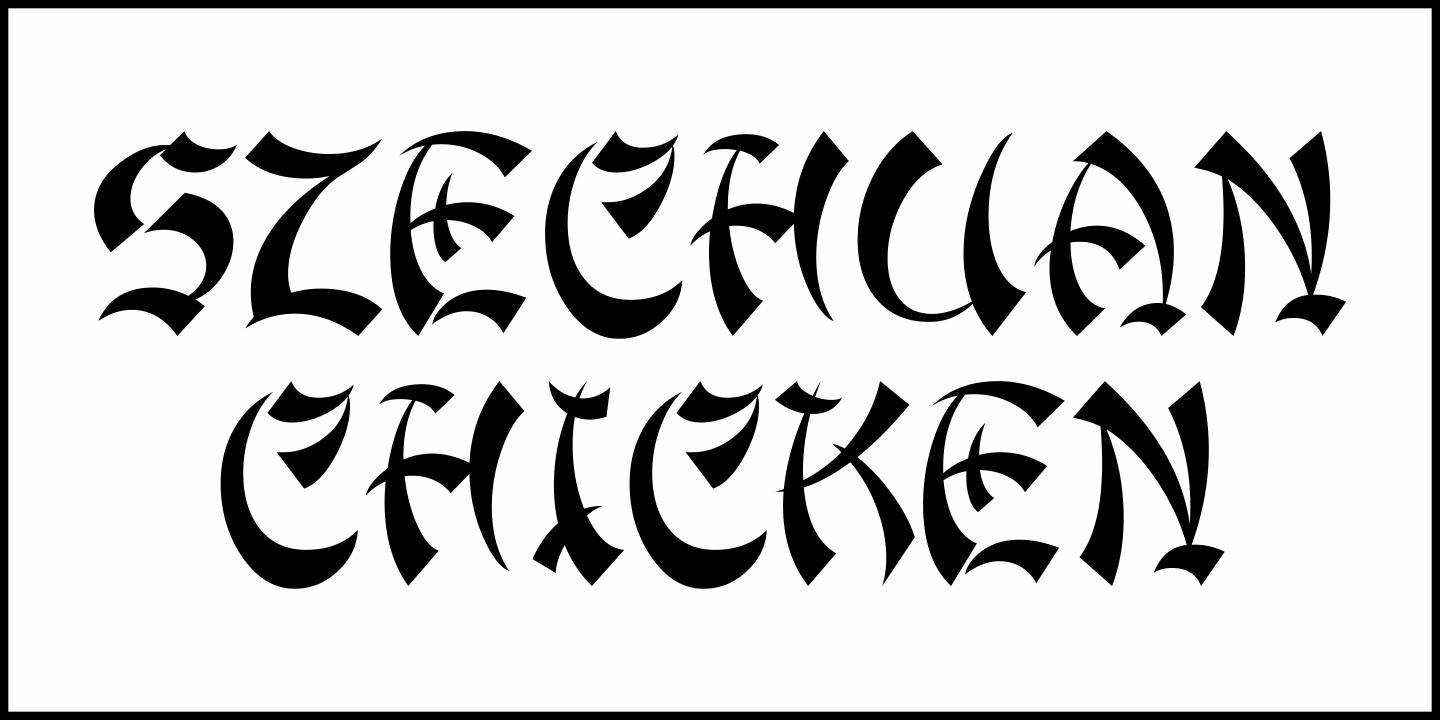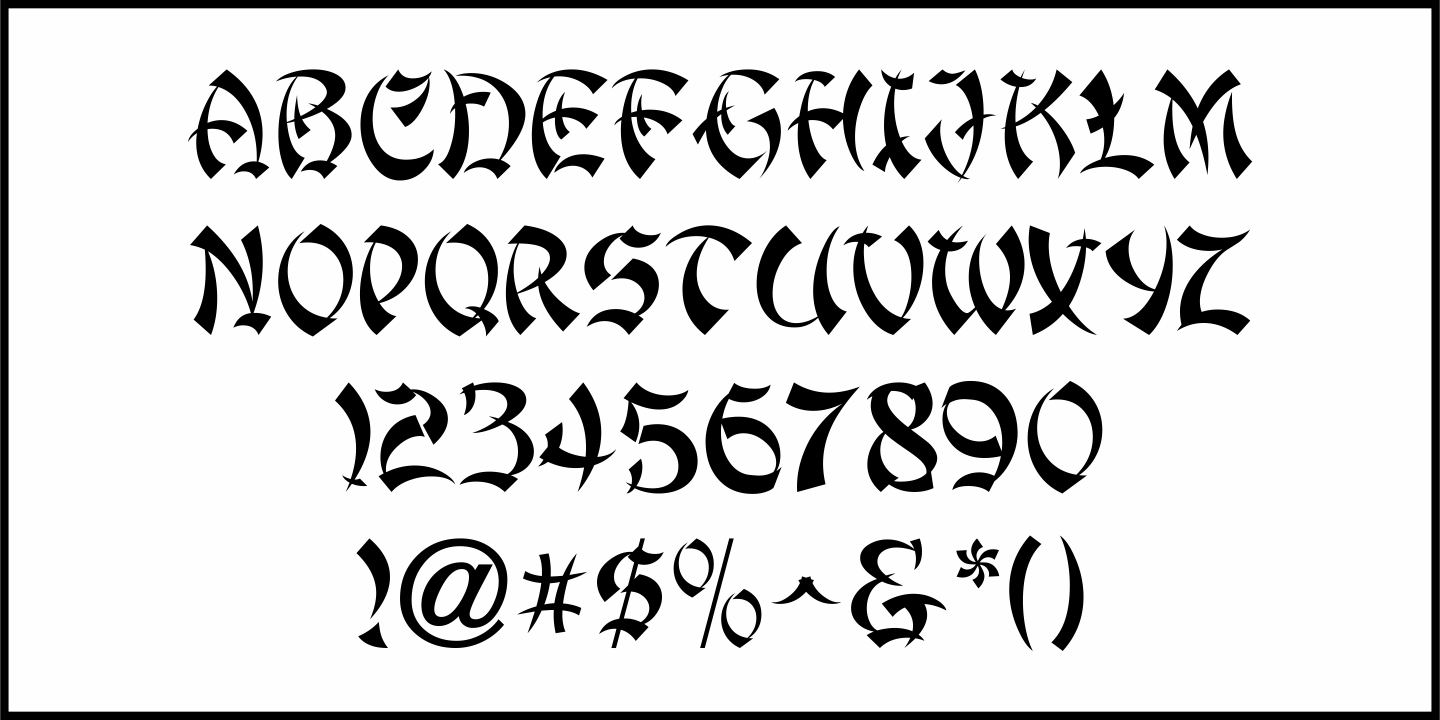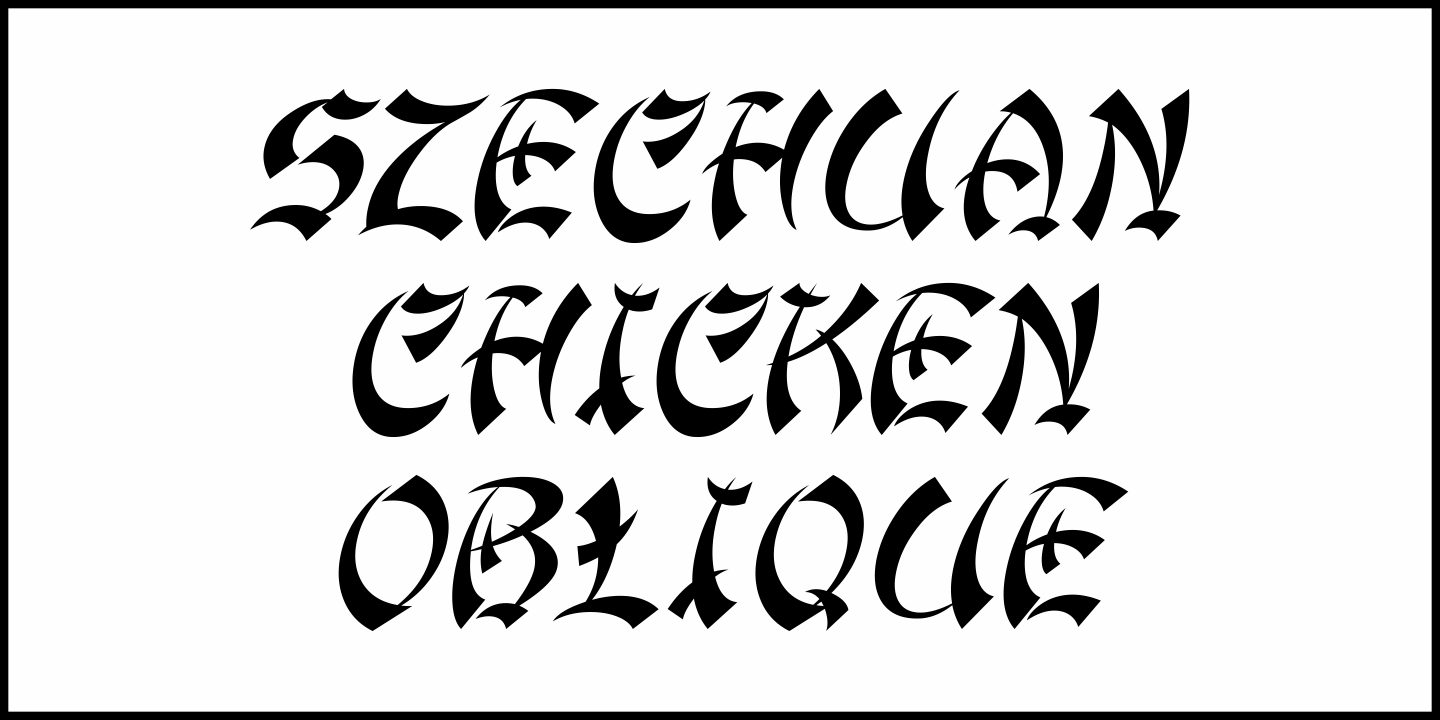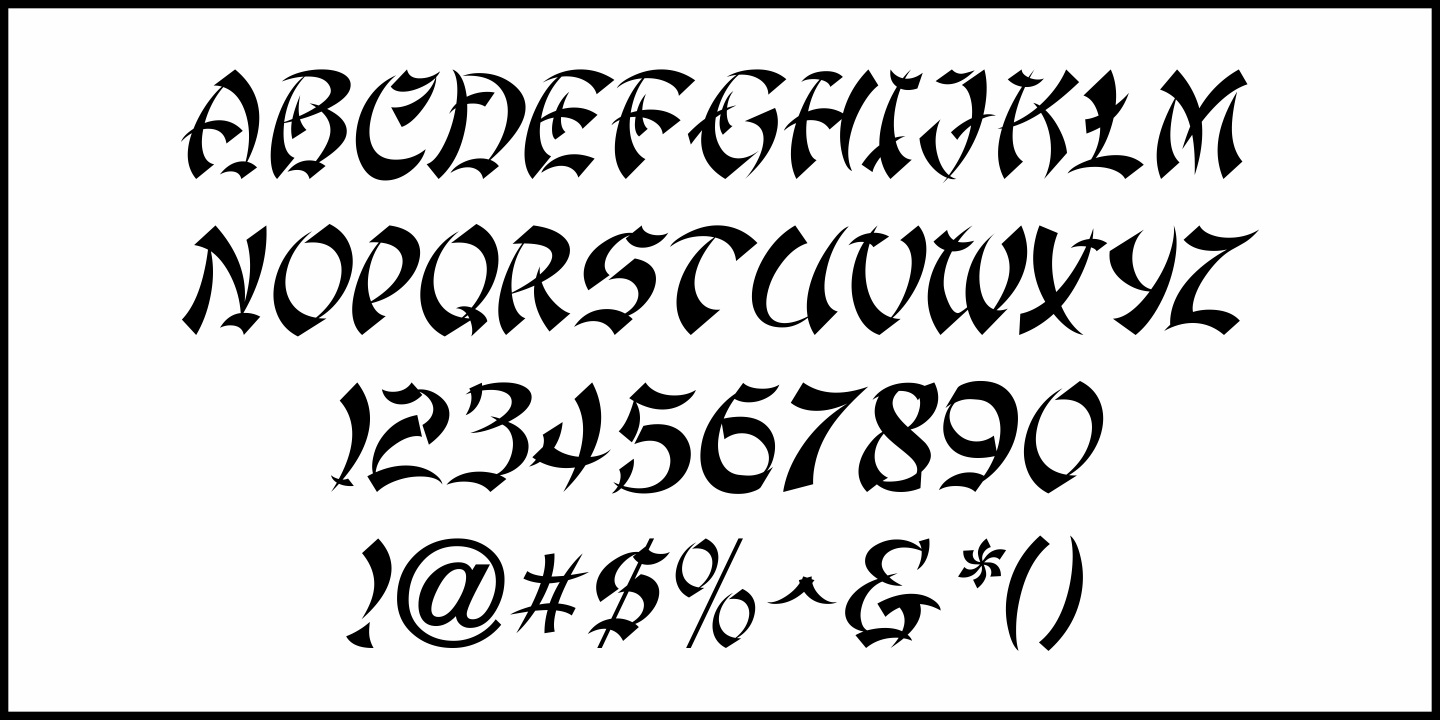
Szechuan Chicken
In the 1923 book "Art Alphabets & Lettering" by J.M. Bergling there is an Asian influenced alphabet that served as the model for Szechuan Chicken JNL - which is available in both regular and oblique versions.